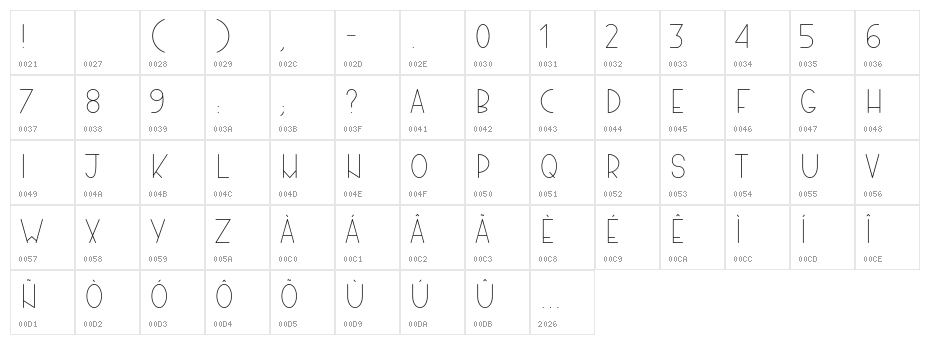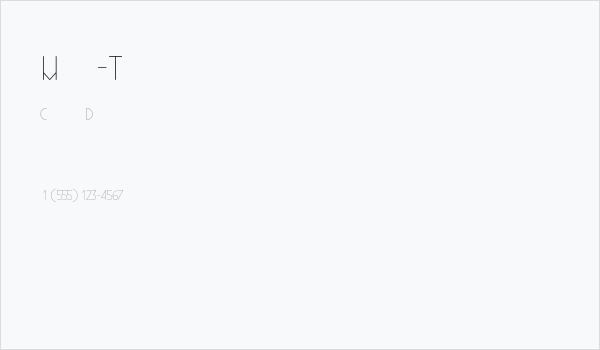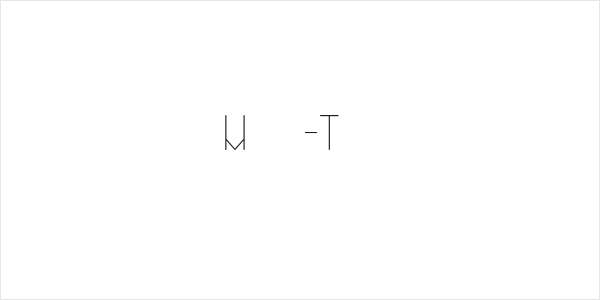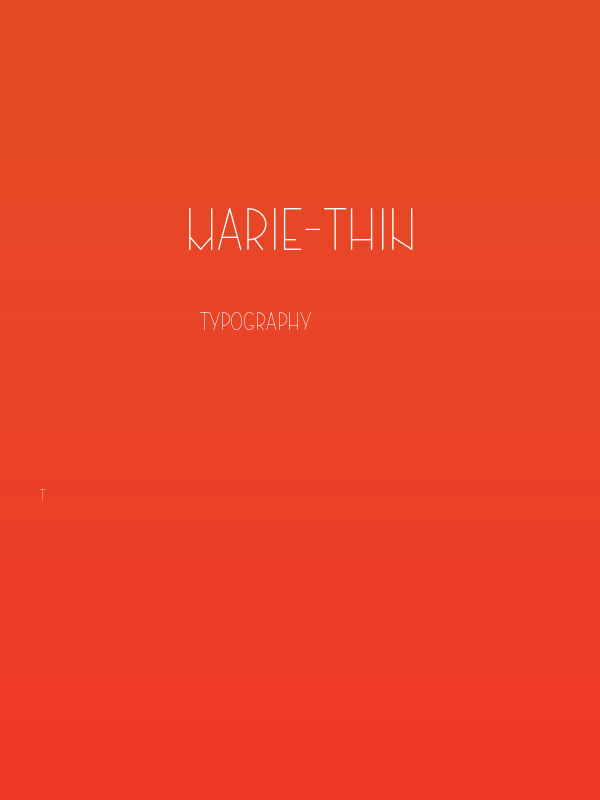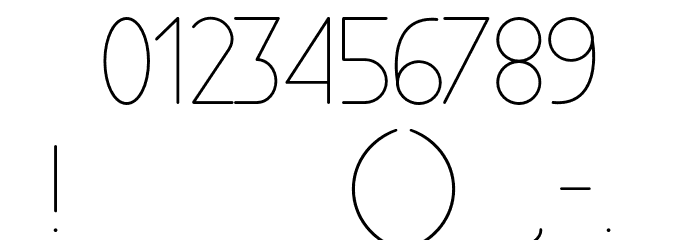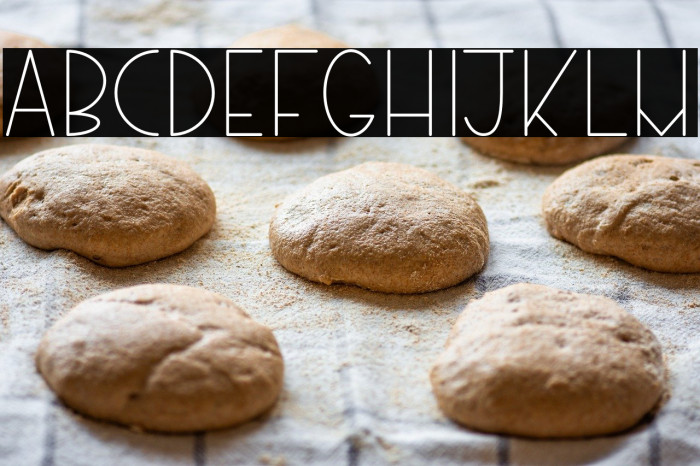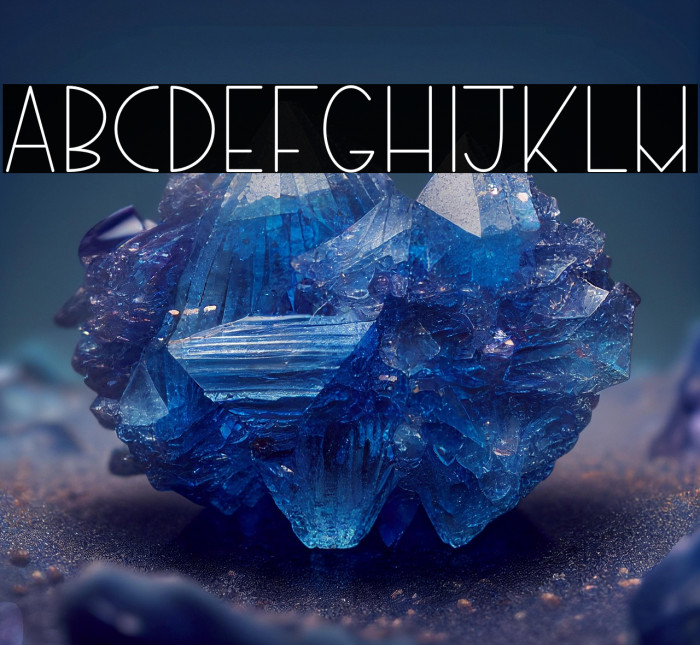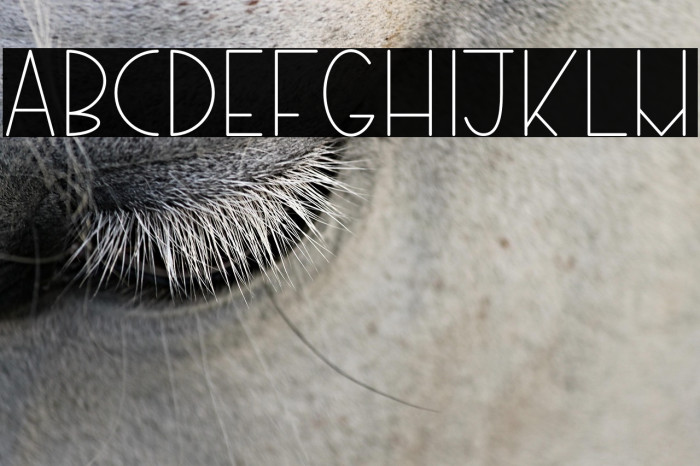
Marie-Thin Font
Marie-Thin Description
This font features a minimalist and geometric design, characterized by its thin lines and clean structure. The uppercase letters are crafted with sharp angles and straight lines, giving it a modern and sophisticated appearance. The numerals and special characters maintain the same thin and precise style, ensuring consistency throughout. Its simplicity and elegance make it suitable for a variety of design applications, where a contemporary and uncluttered look is desired.
| Proposed Projects | Ideal for modern branding, minimalist posters, and sleek product packaging. |